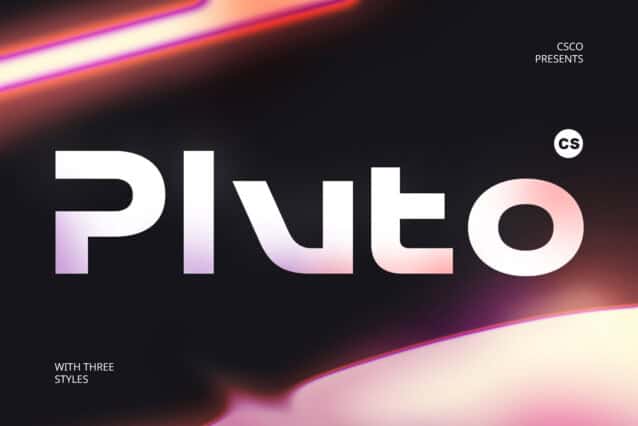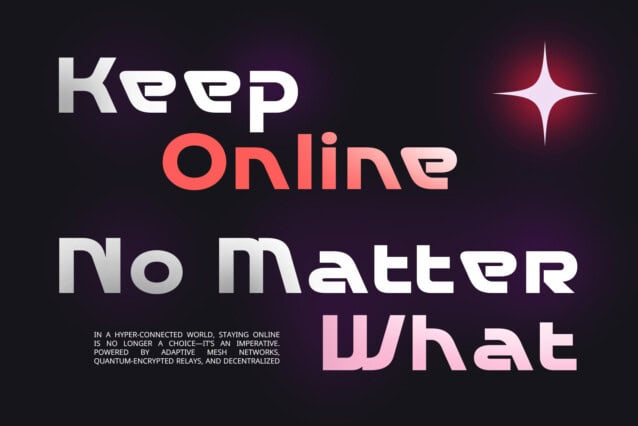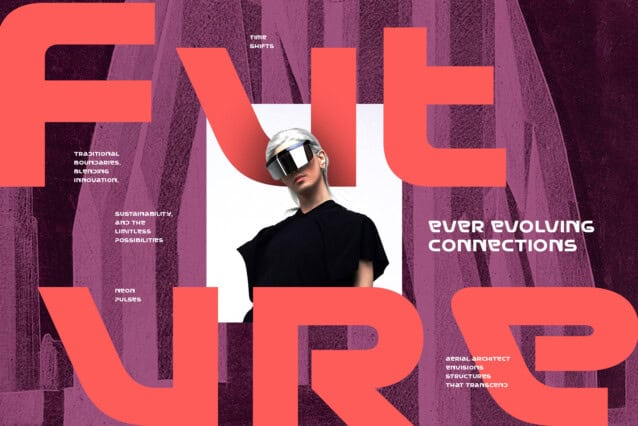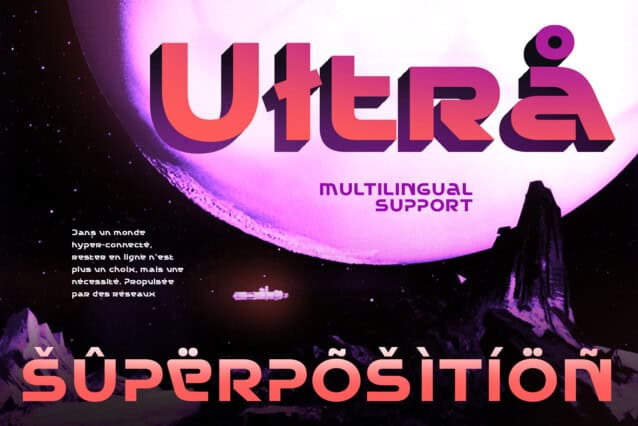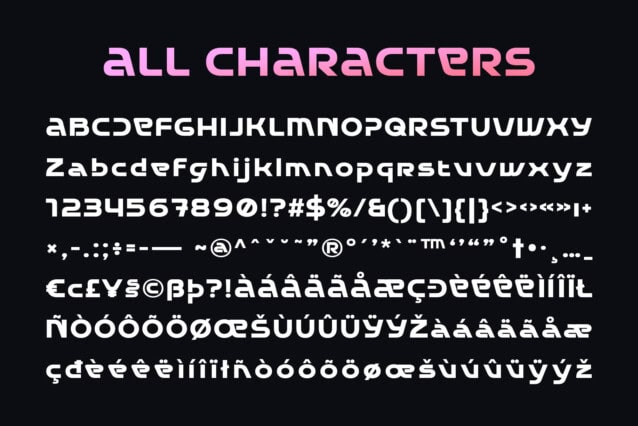
CS Pluto Font
CS Pluto Font is a modern sans-serif display font with a bold, futuristic shape, featuring strong, sharp lines and geometric proportions. Its structured and high-tech appearance captures the essence of innovation, speed, and progress, making it a perfect choice for cutting-edge digital applications, sci-fi branding, and forward-thinking visual identities.